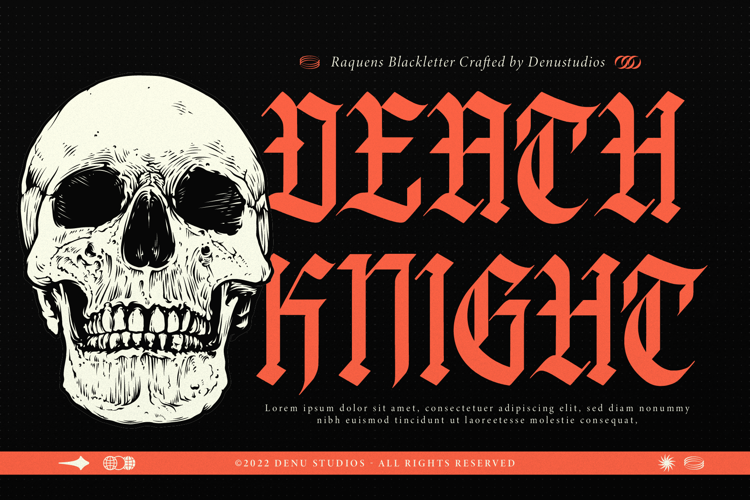
Raquens Font
Raquens | Blackletter Display product packaging, mugs, quotes, posters, shopping bags, t-shirts, book covers, name card, invitation cards, greeting cards, label, photography, watermark, special events, and all your other lovely projects that need a Blackletter font taste.